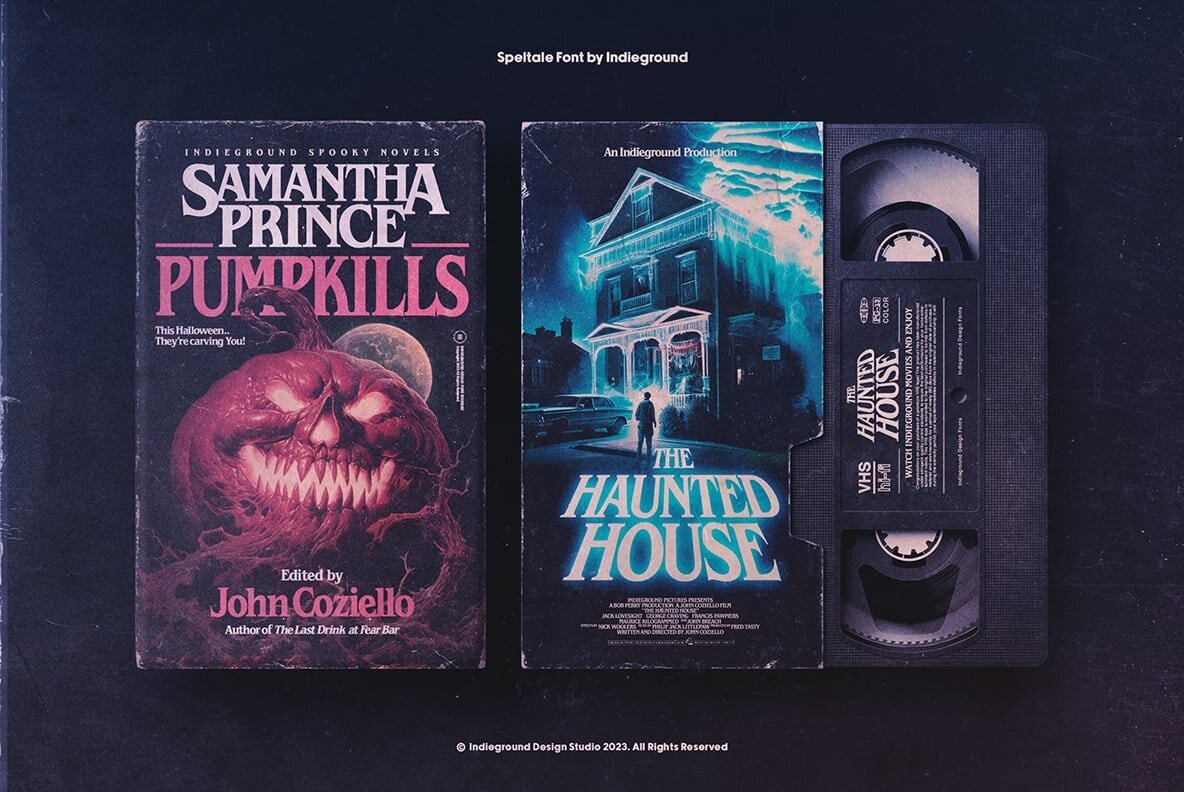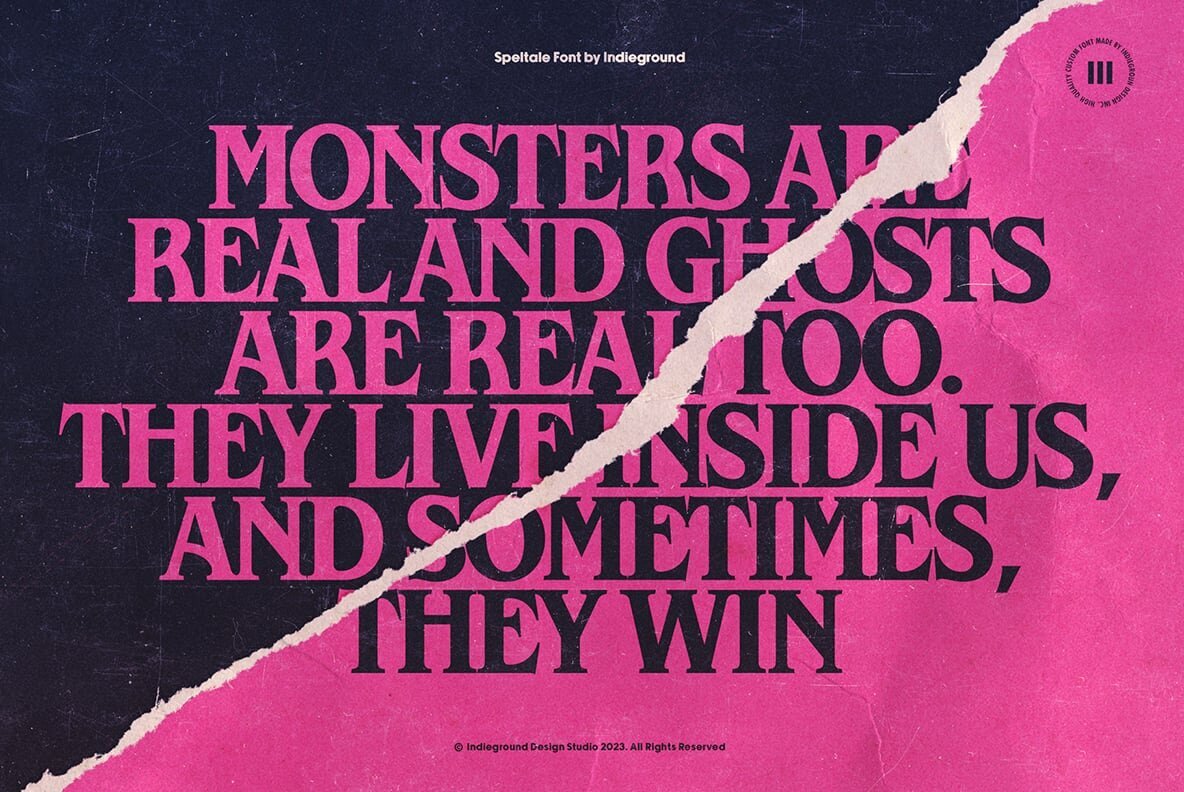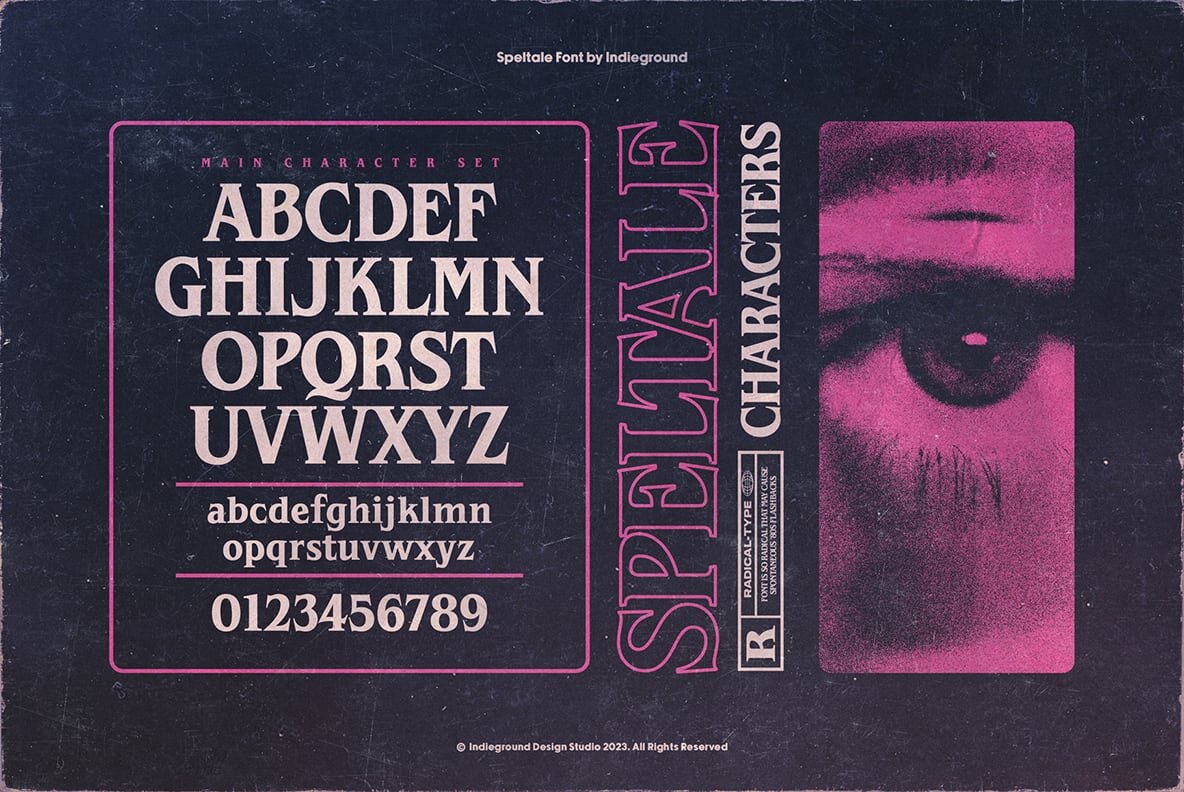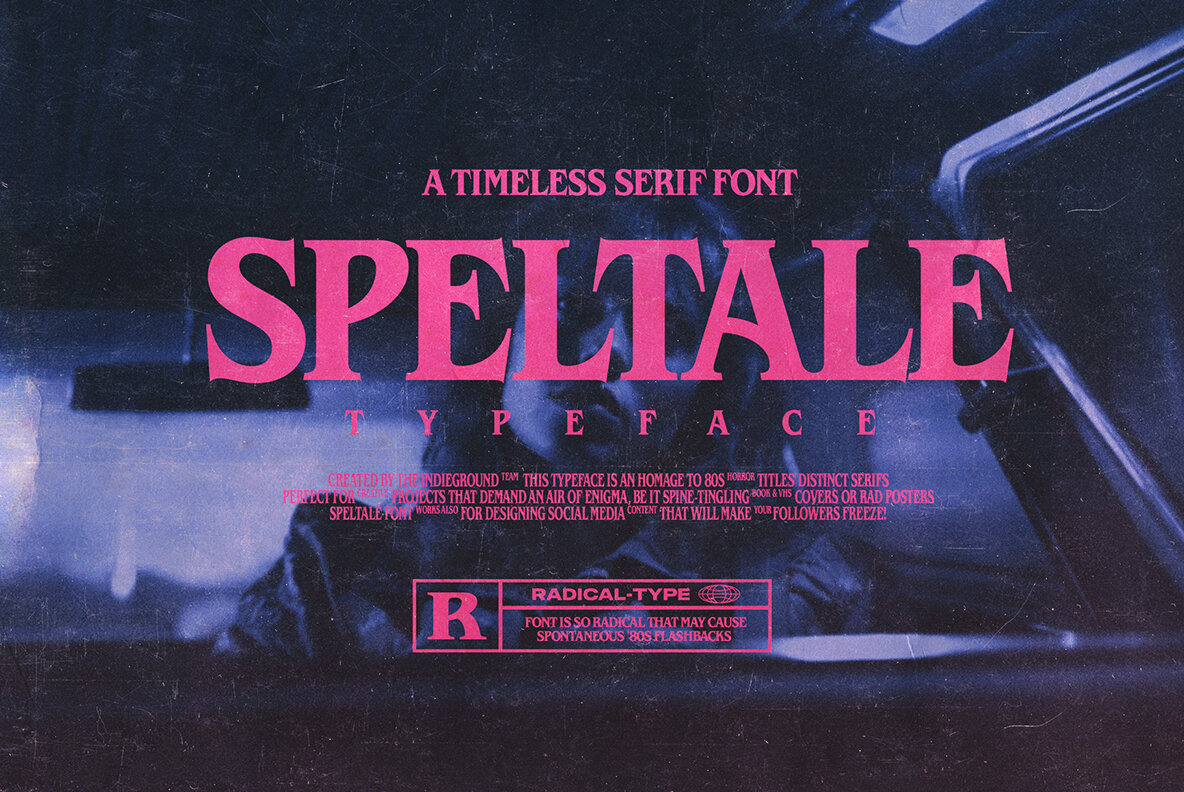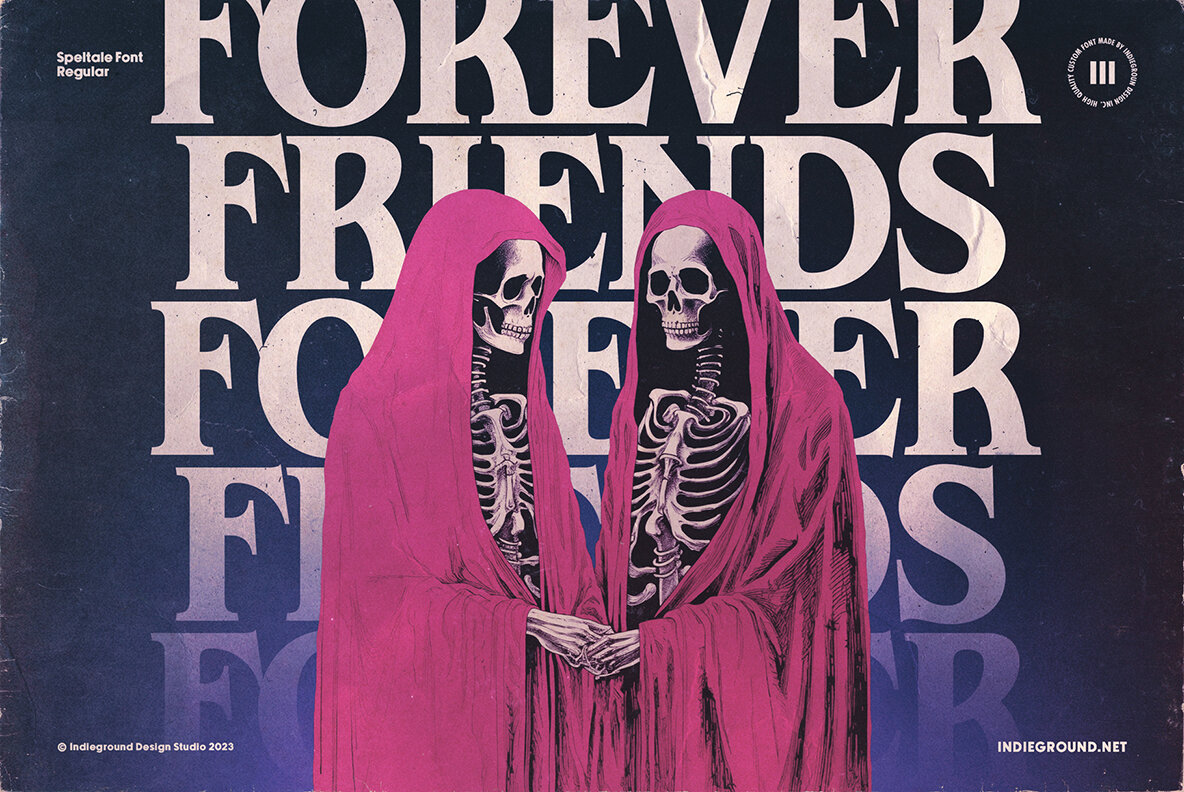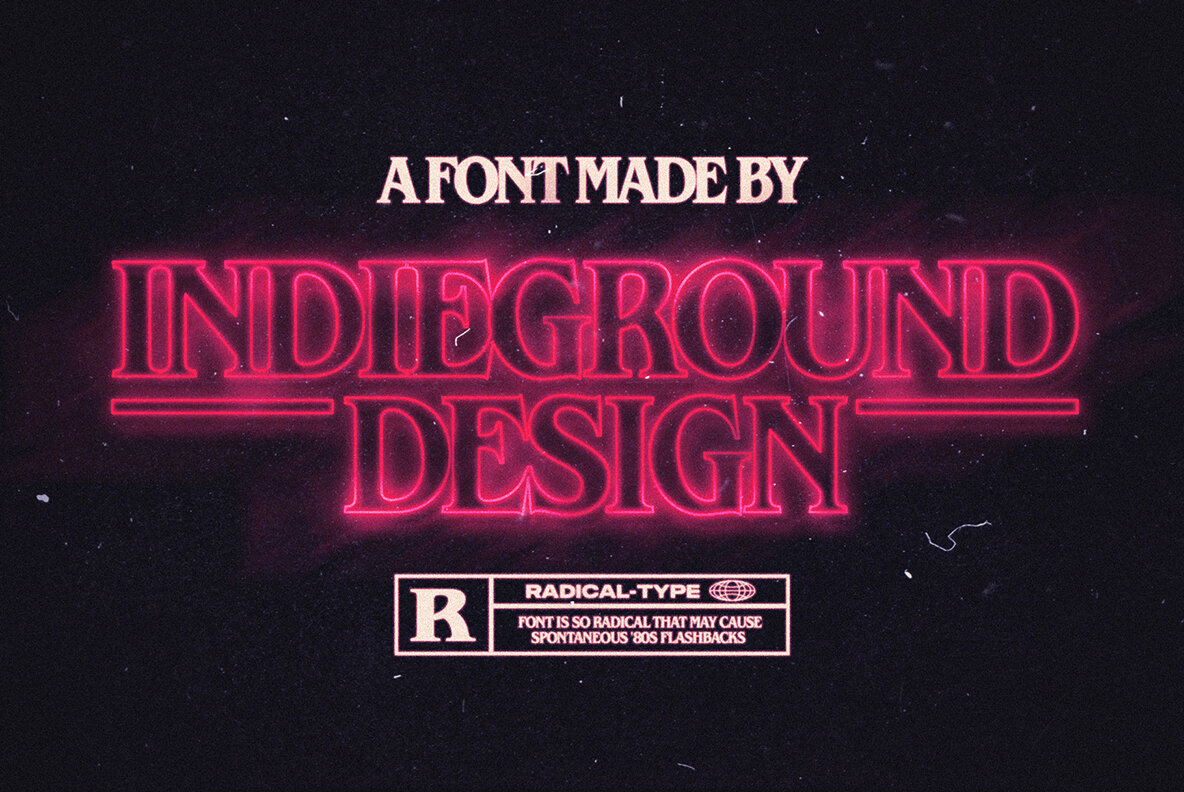
Speltale Font
Speltale Regular
This chilling, mysterious and vintage serif font blends the charm of retro and gothic atmospheres. Its distinct serifs and shivering vintage sensations are designed for creative projects that demand an air of enigma, be it spine-tingling book covers or chilling posters, Speltale works wonders also for social media content that will make your followers freeze. Our new take on the classic serif font includes the complete character set and every enigmatic glyph and special character you saw and fell in love with in the preview!